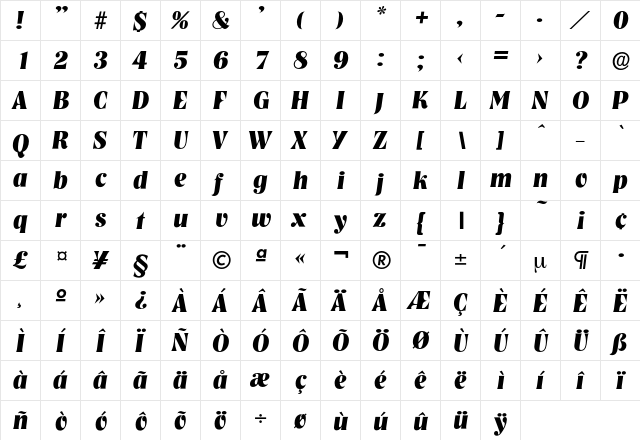
Nashville-BoldIta Regular Font Preview
Nashville-BoldIta Regular
Nashville-BoldIta Regular Font Details
Design Context for Nashville-BoldIta Typeface
Nashville-BoldIta is a composed and adaptable typeface that performs quietly and consistently across a wide range of design contexts. The heavy weight commands attention and anchors typographic hierarchies.
Nashville-BoldIta Regular Character Map